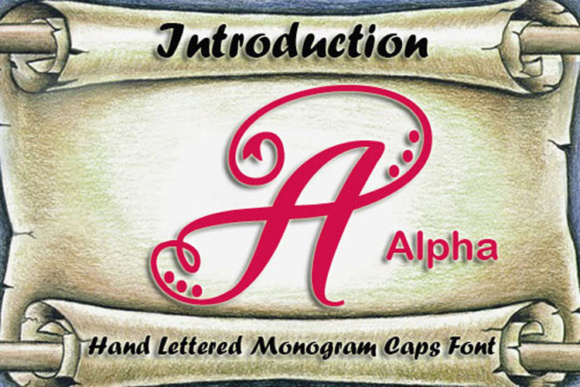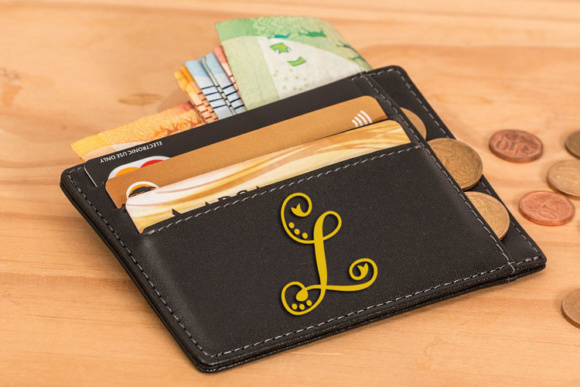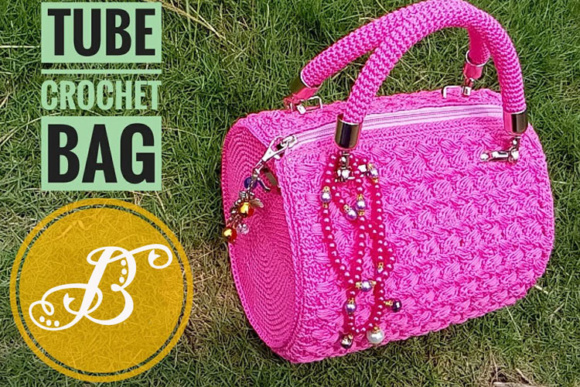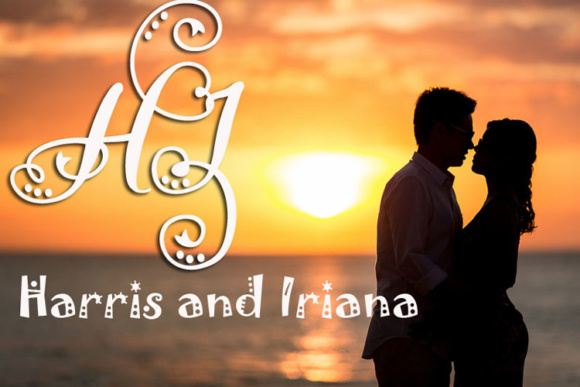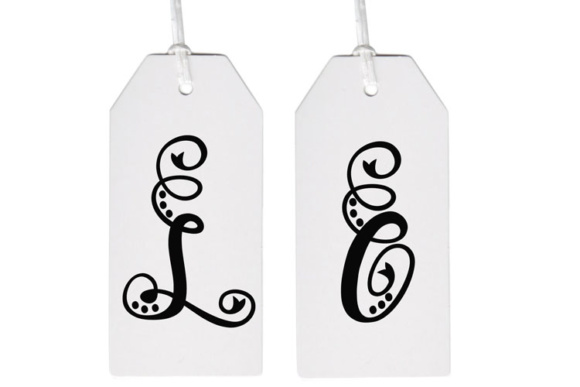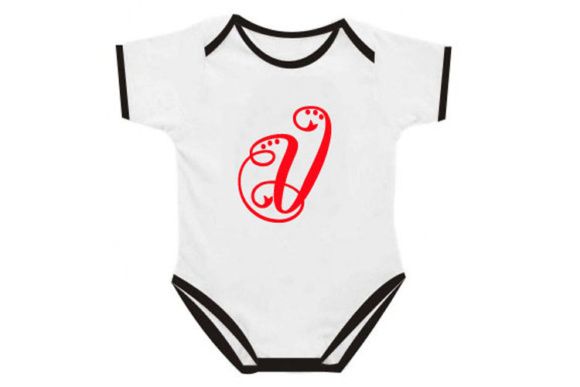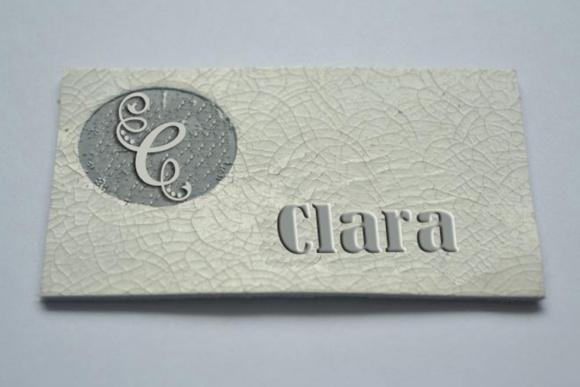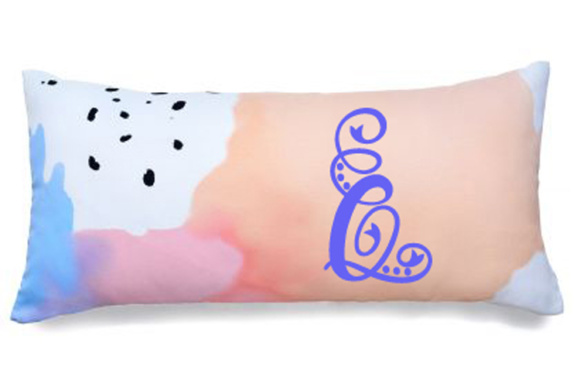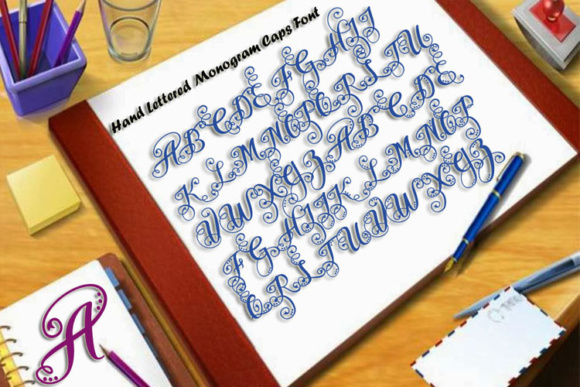
Alpha Monogram Font
About Alpha Monogram Font
Get this amazing set of monogram characters, ideal for use in special projects! This font has a gorgeous, detailed look and works to add some classiness to your work.